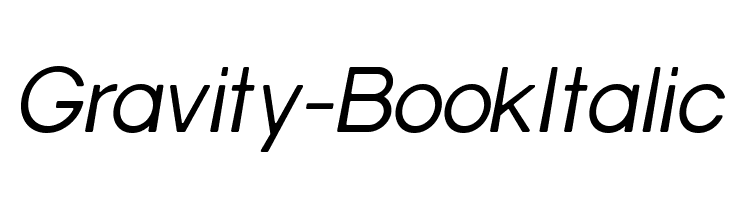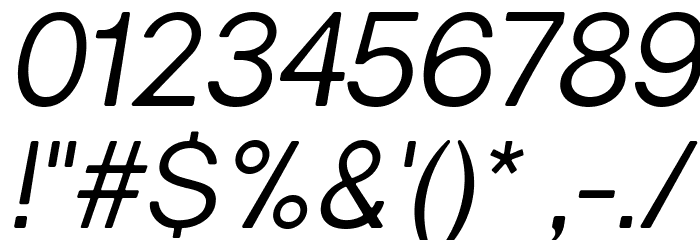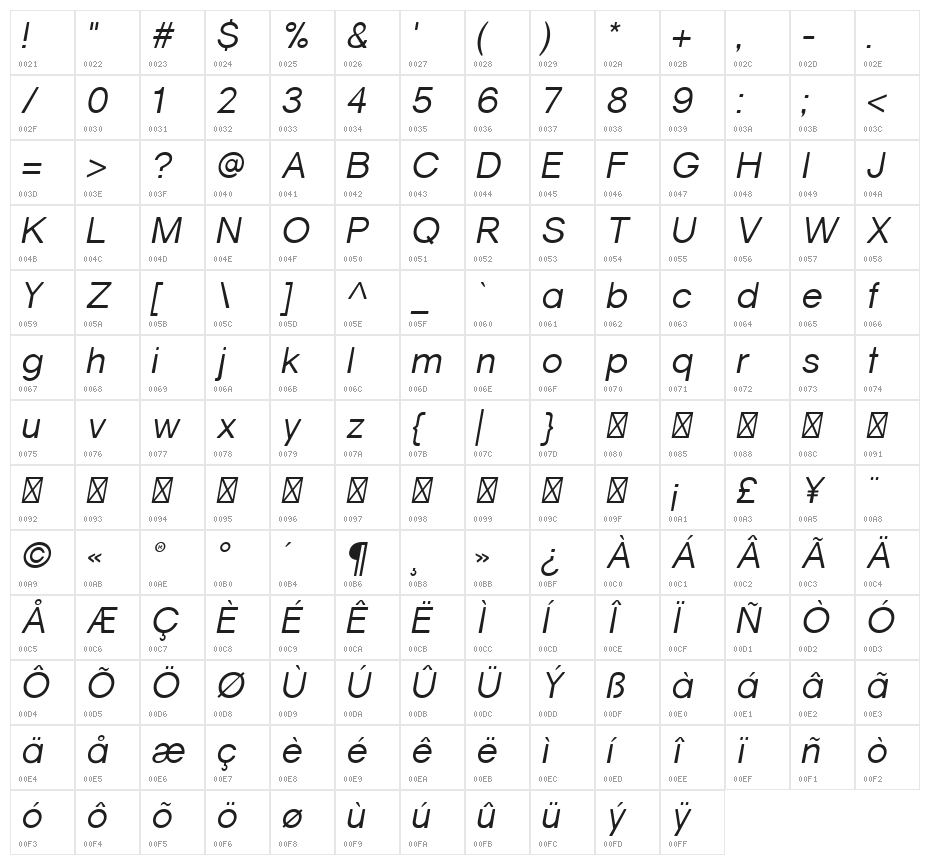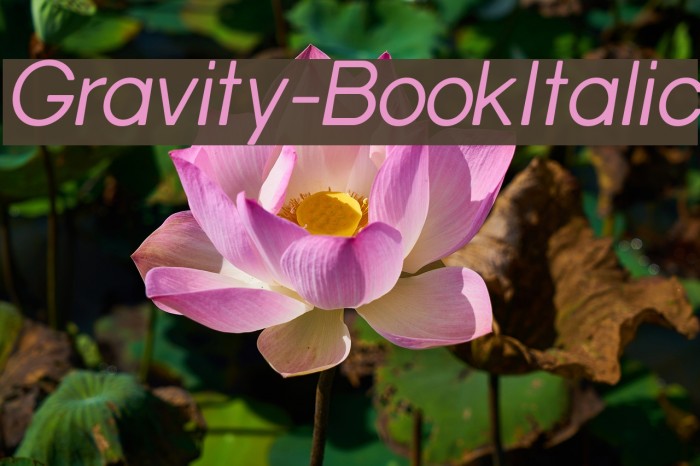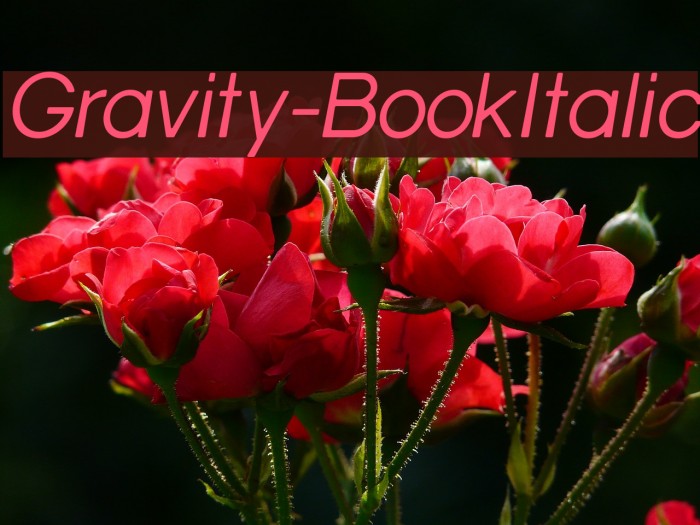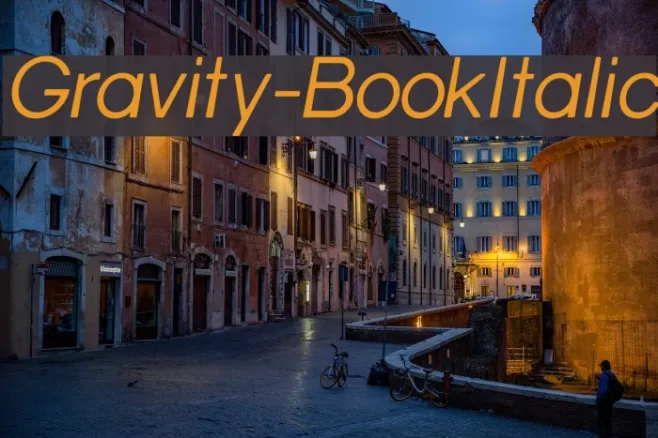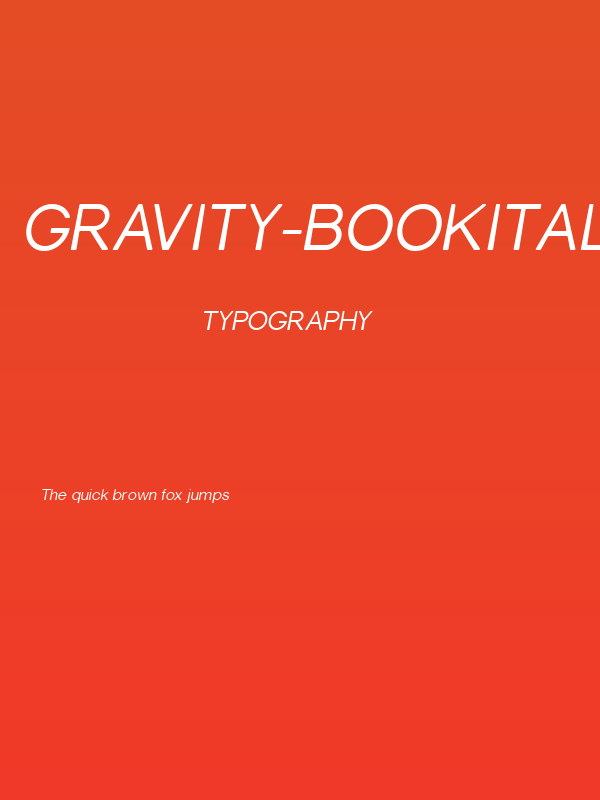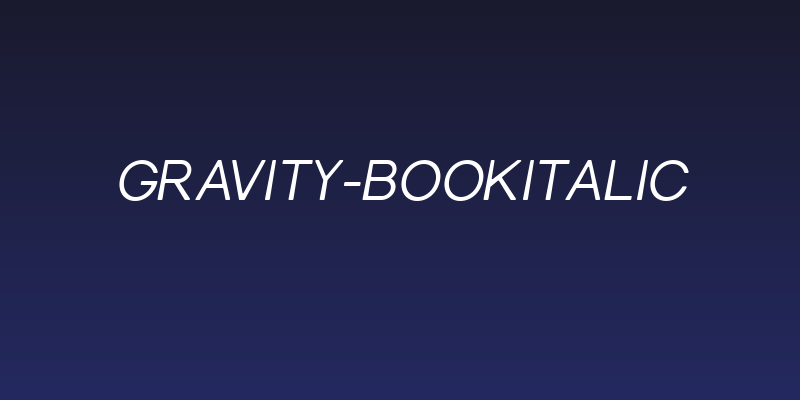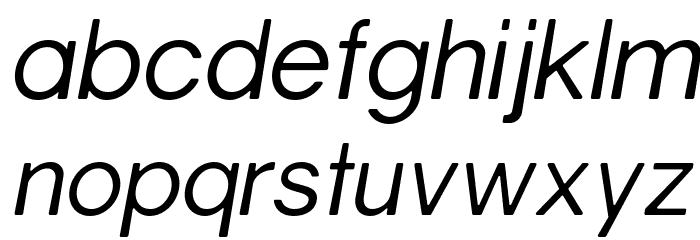
Gravity-BookItalic Font
Gravity-BookItalic Description
This font features a sleek and modern design with a slight italic slant, giving it a dynamic and forward-moving appearance. The characters are clean and well-defined, with smooth curves and a consistent stroke width that conveys a sense of elegance and professionalism. The uppercase letters are slightly taller than the lowercase, maintaining a balanced proportion that enhances readability. The numerals are clear and distinct, matching the overall style of the alphabet. Special characters are included, maintaining the same aesthetic quality. This font is versatile, suitable for a variety of design applications where a contemporary and stylish look is desired.